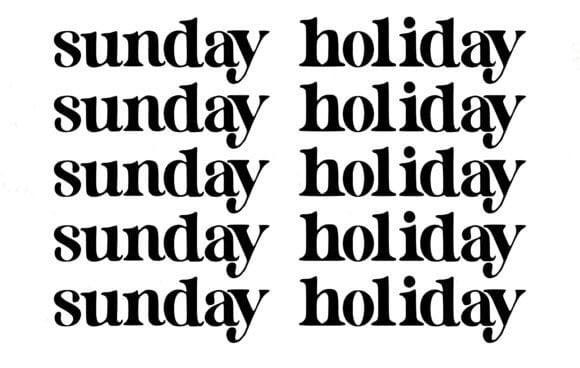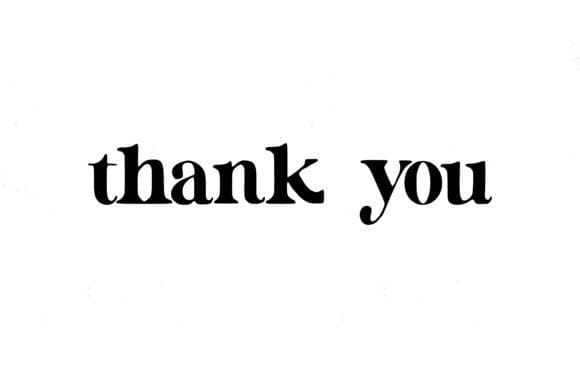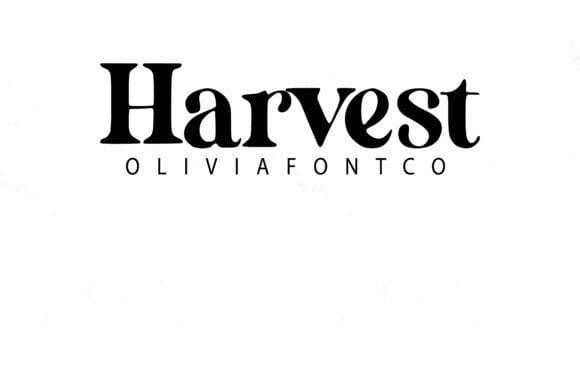
Harvest Font
Harvest font is a classy serif font that brings elegance to your text. Expertly designed to be a true favorite, this font has the potential to take your creative ideas to the highest level
This font is legible and looks great as a title or body text. This font would be perfect for many different designs for magazine headlines, social media, branding, wedding invitations, cards, etc.